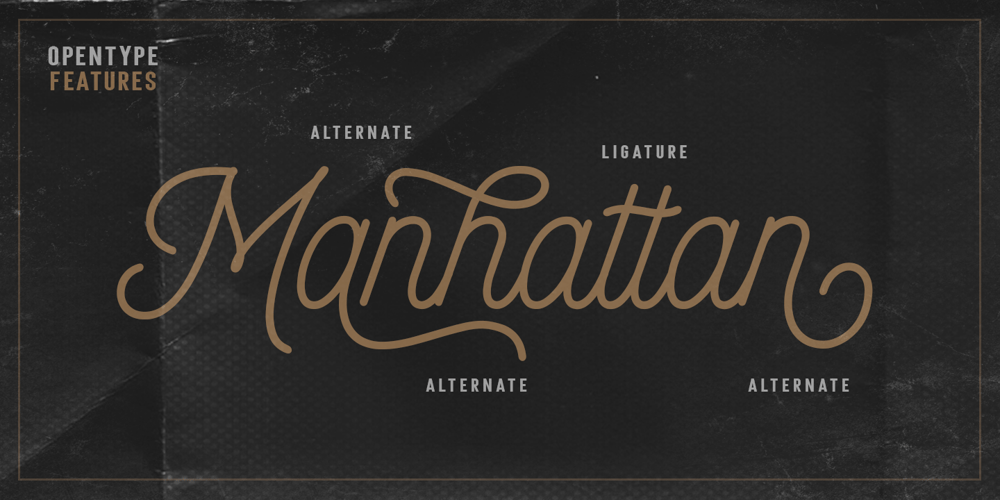
Monotage
Monotage font
Monotage Font Family was designed by Fajar Gunawan and published by Fargun Studio. Monotage contains 2 styles and family package options. Monotage a modern combination Monoline Script and Sans.Monotage Font Duo, a classy, contemporary pair of Monoline Script and Sans. With a stylish didot-style Sans font and a free-flowing, expressive script companion, Silver South offers beautiful typographic harmony for a diversity of design projects, including logos & branding, wedding designs, social media posts, advertisements & product designs.Monotage Script • A clean, free-flowing script font containing upper & lowercase characters, numerals and a large range of punctuation.Monotage Sans • A classy Sans font containing uppercase characters, numerals and a large range of punctuation. Creates a perfect pairing contrast with Monotage Script fonts.Monotage Script Ligatures & Alternates • Monotage Monoline Script also includes 5 character ligatures and 130 alternates. To enable the OpenType Stylistic alternates, you need a program that supports OpenType features such as Adobe Illustrator CS, Adobe Indesign & CorelDraw X6-X7.There are additional ways to access alternates, using Character Map (Windows), Nexus Font (Windows), Font Book (Mac) or a software program such as PopChar (for Windows and Mac).